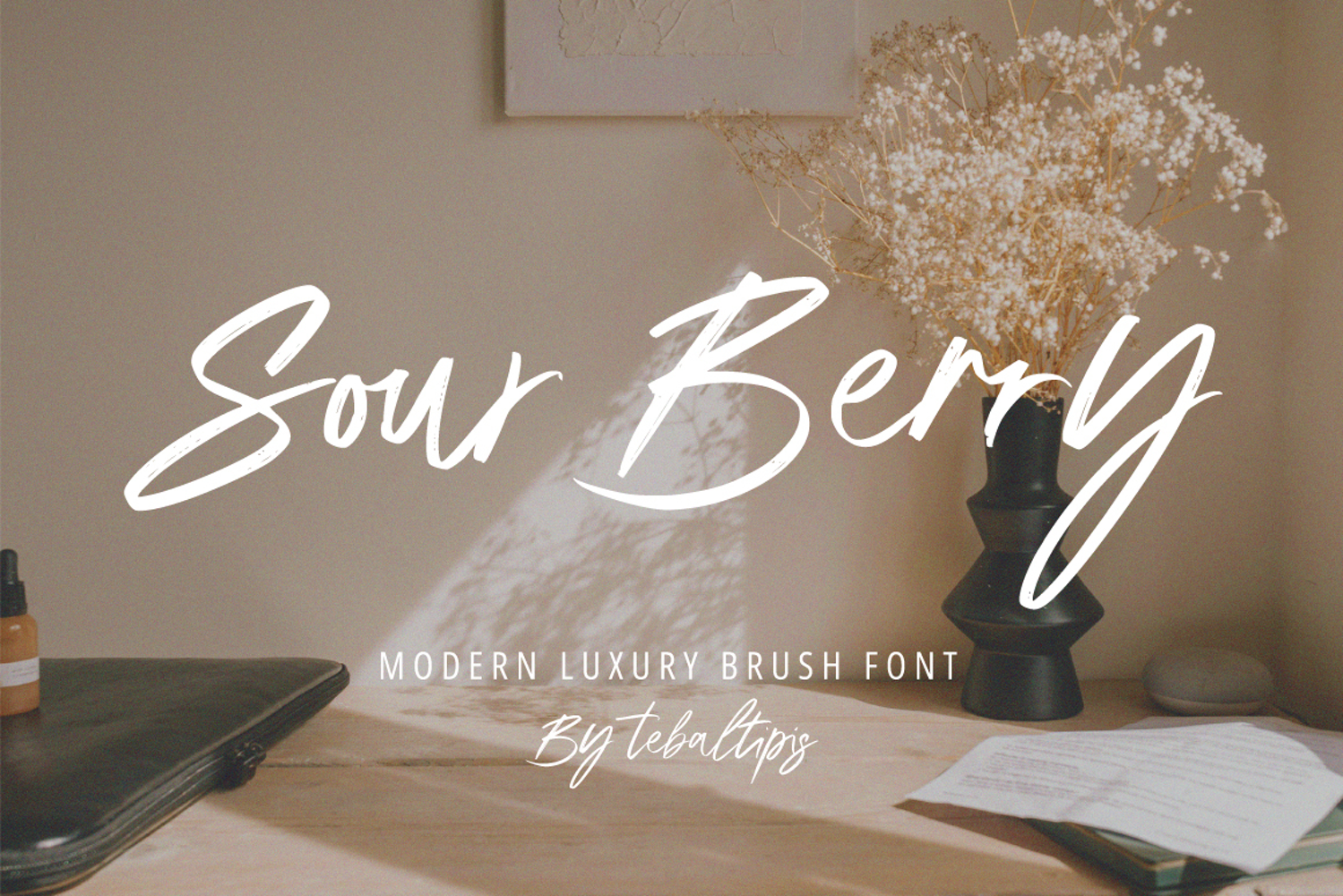
Sour Berry Signature
Sour Berry with a handmade Signature style, decorative characters and a dancing baseline!
Sour Berry with 130+ glyphs. The alternative characters were divided into several Open Type features such as Swash, Stylistic Sets, Stylistic Alternates, and Ligature. The Open Type features can be accessed by using Open Type savvy programs such as Adobe Illustrator, Adobe InDesign, Adobe Photoshop Corel Draw X version, And Microsoft Word. And this Font has given PUA unicode (specially coded fonts). so that all the alternate characters can easily be accessed in full by a craftsman or designer.